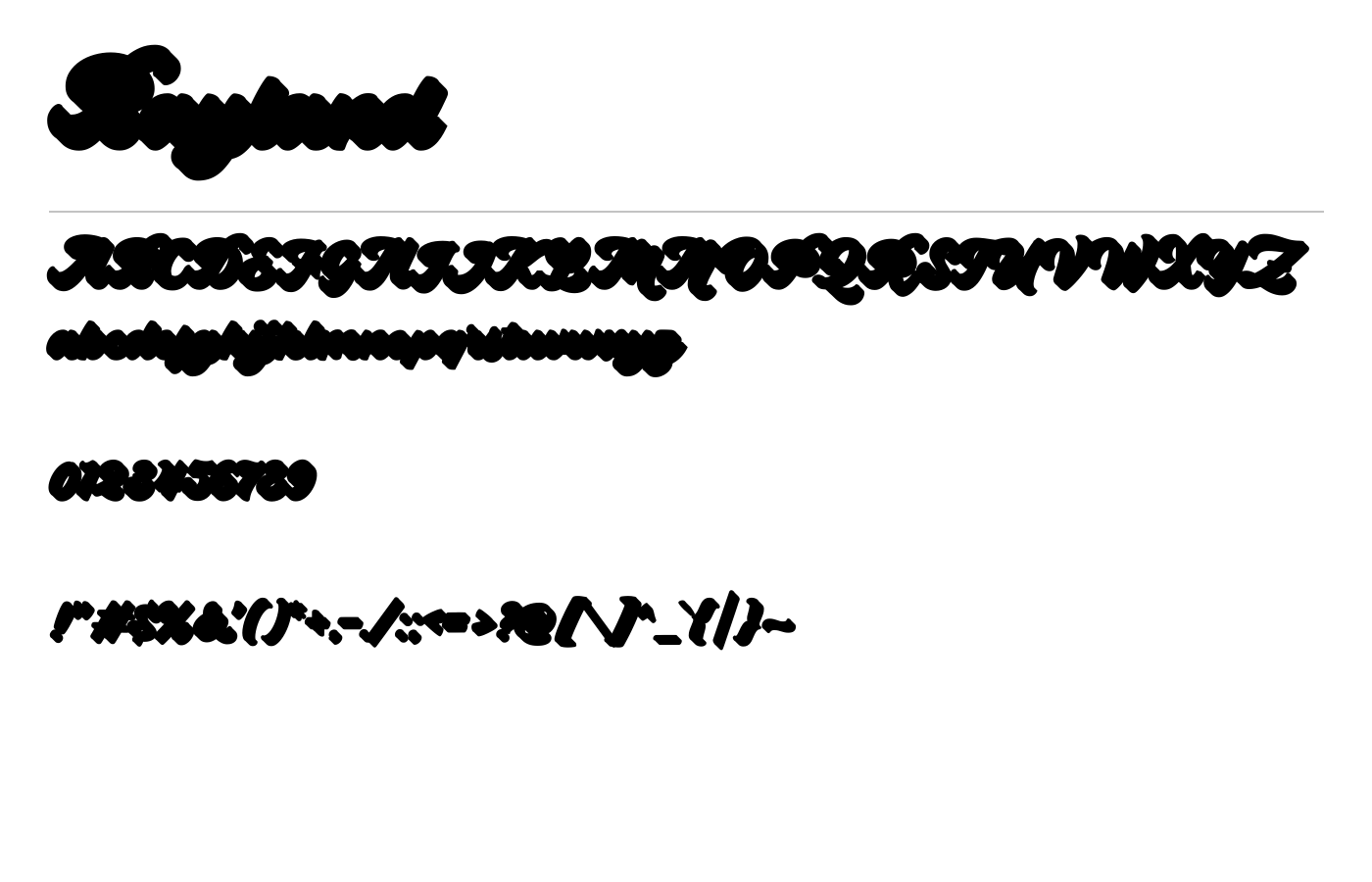
Bayland Font is a bold and playful script with thick, rounded strokes that create a friendly and informal vibe. Its connected, cursive letterforms with a high x-height give it great readability while maintaining a lively, hand-drawn aesthetic perfect for casual branding, logos, and fun editorial projects. This font works well when you want to add personality and warmth to your design without sacrificing clarity.
Bayland Font
About Bayland Font
| Font family | Bayland Font |
| Designer | Letterhend Stduio |